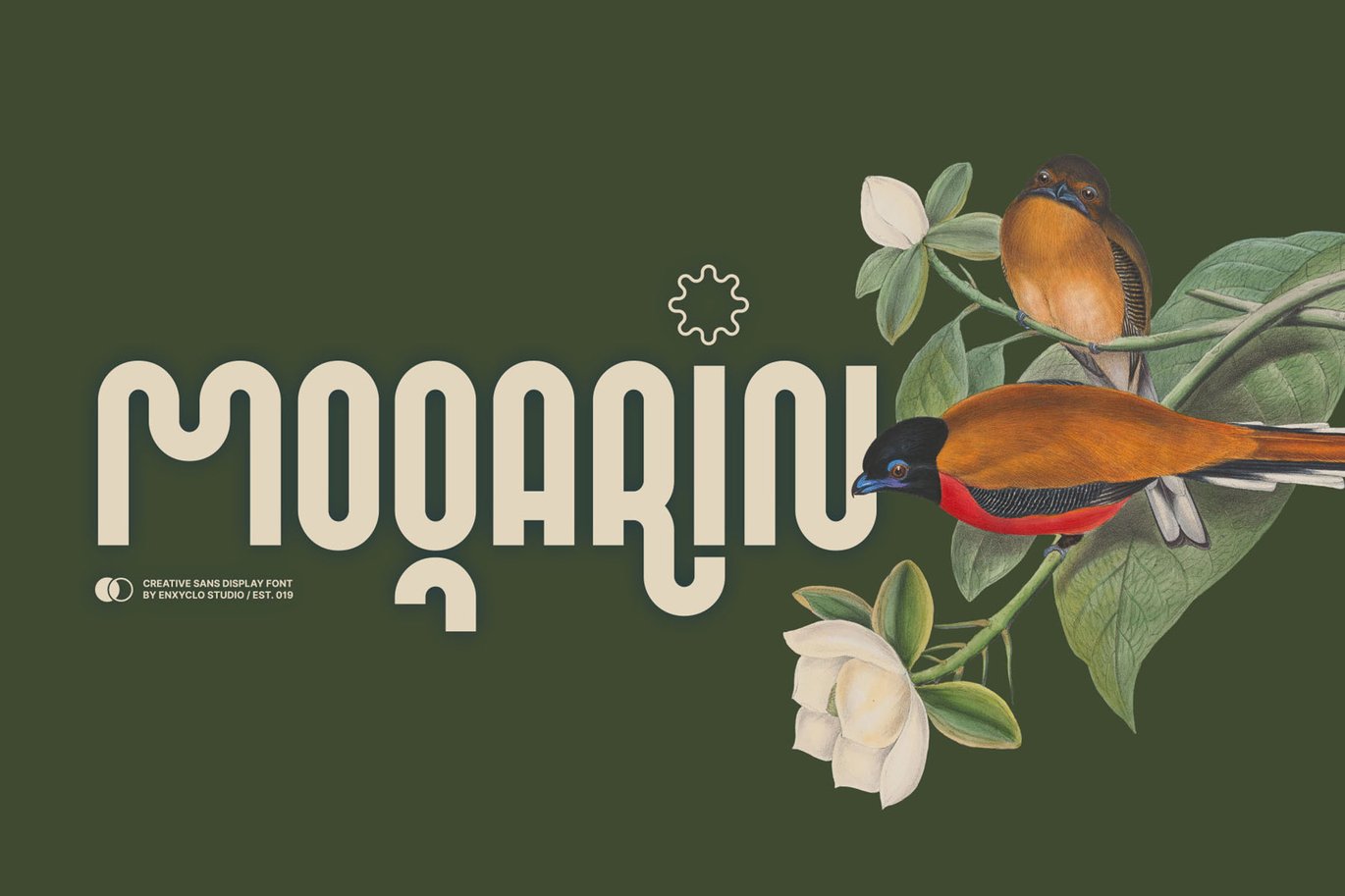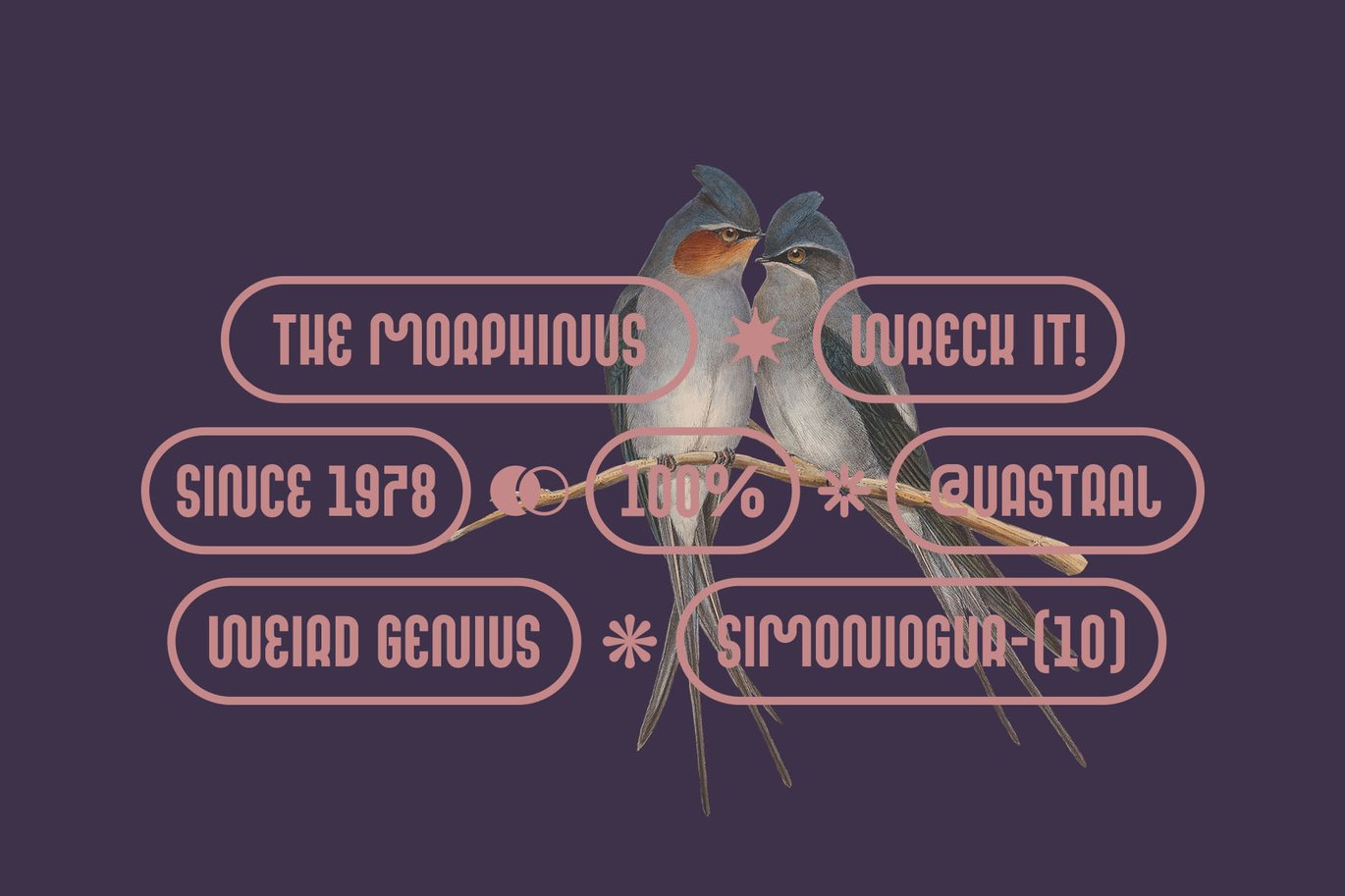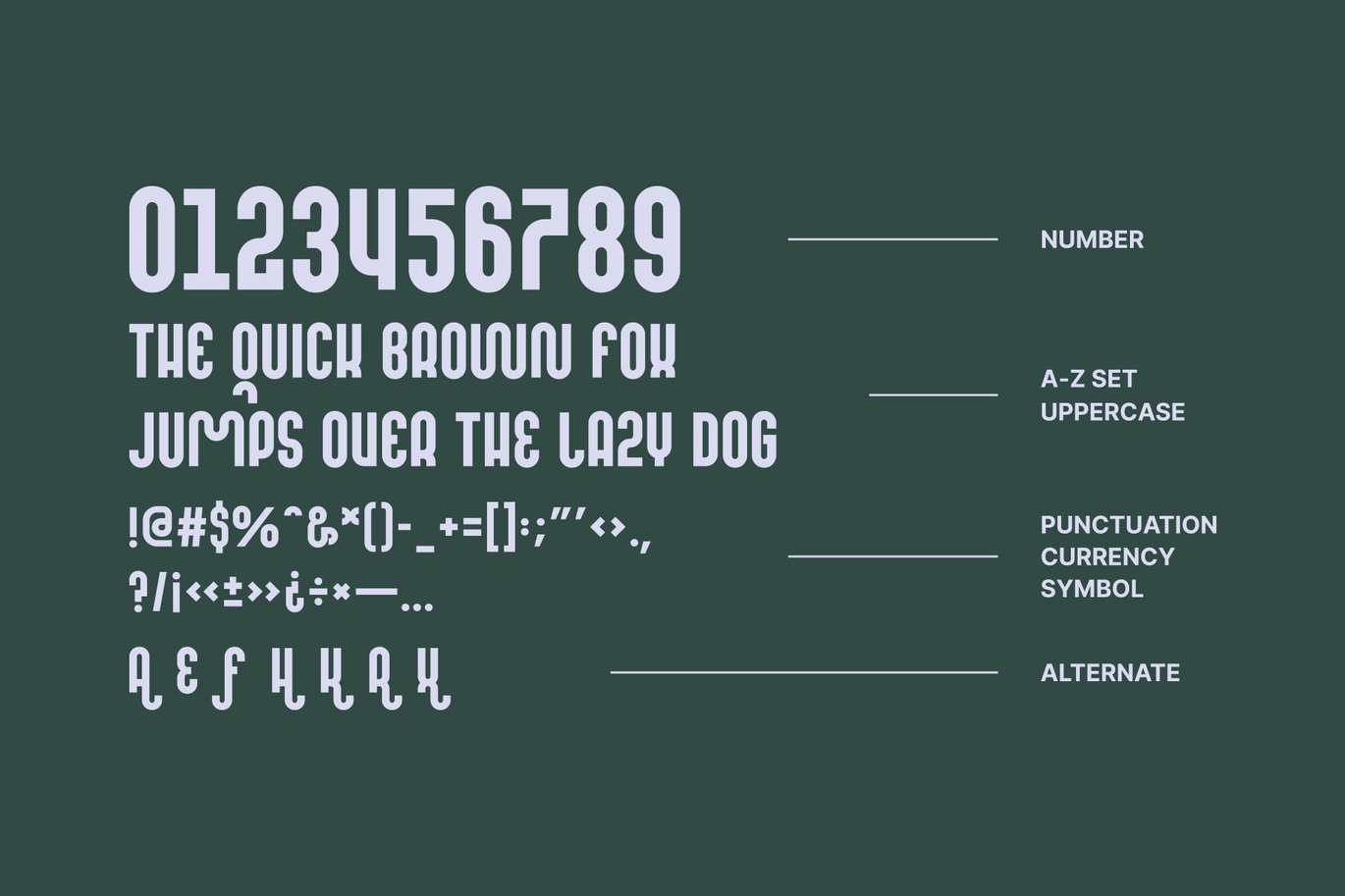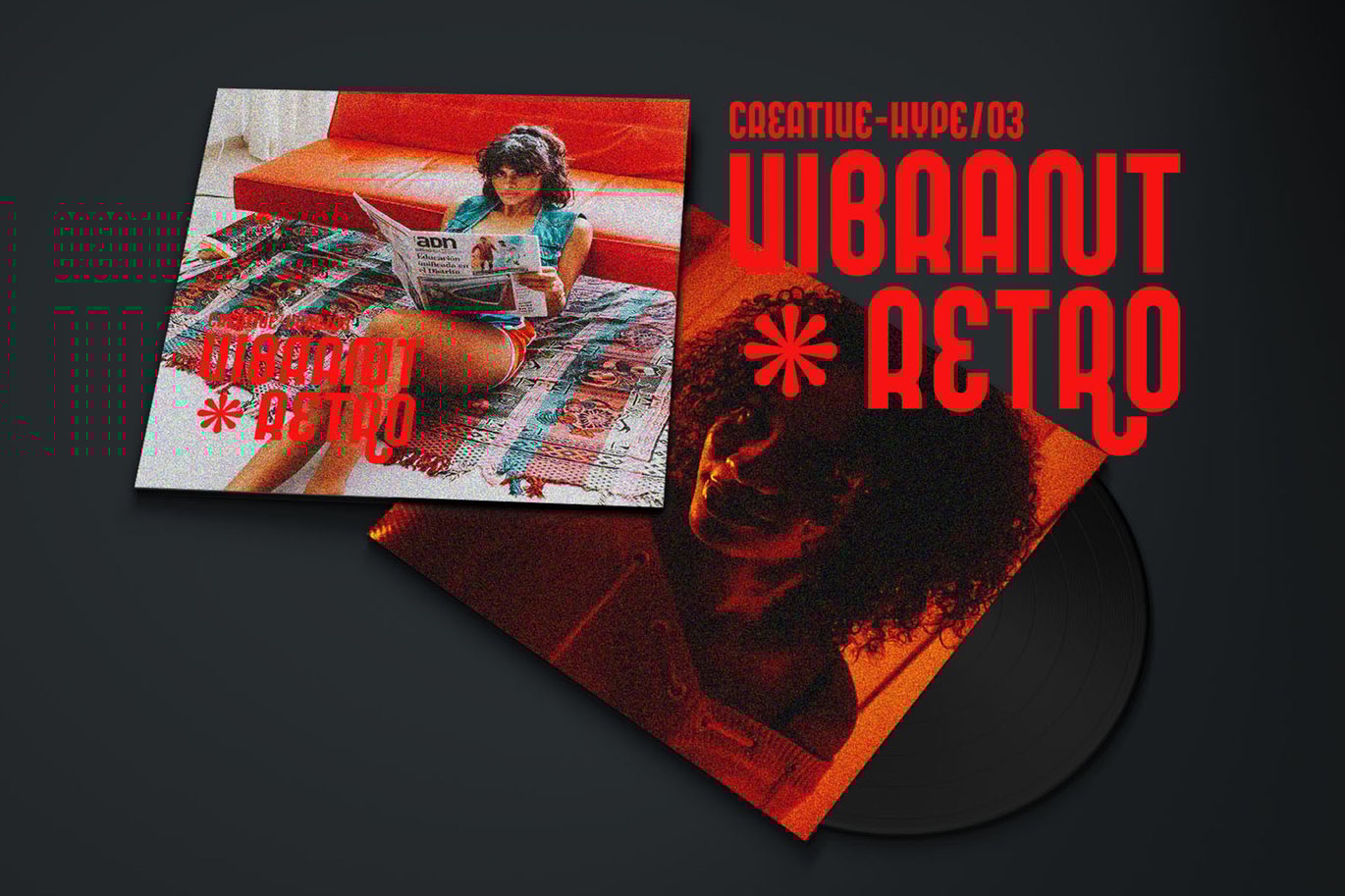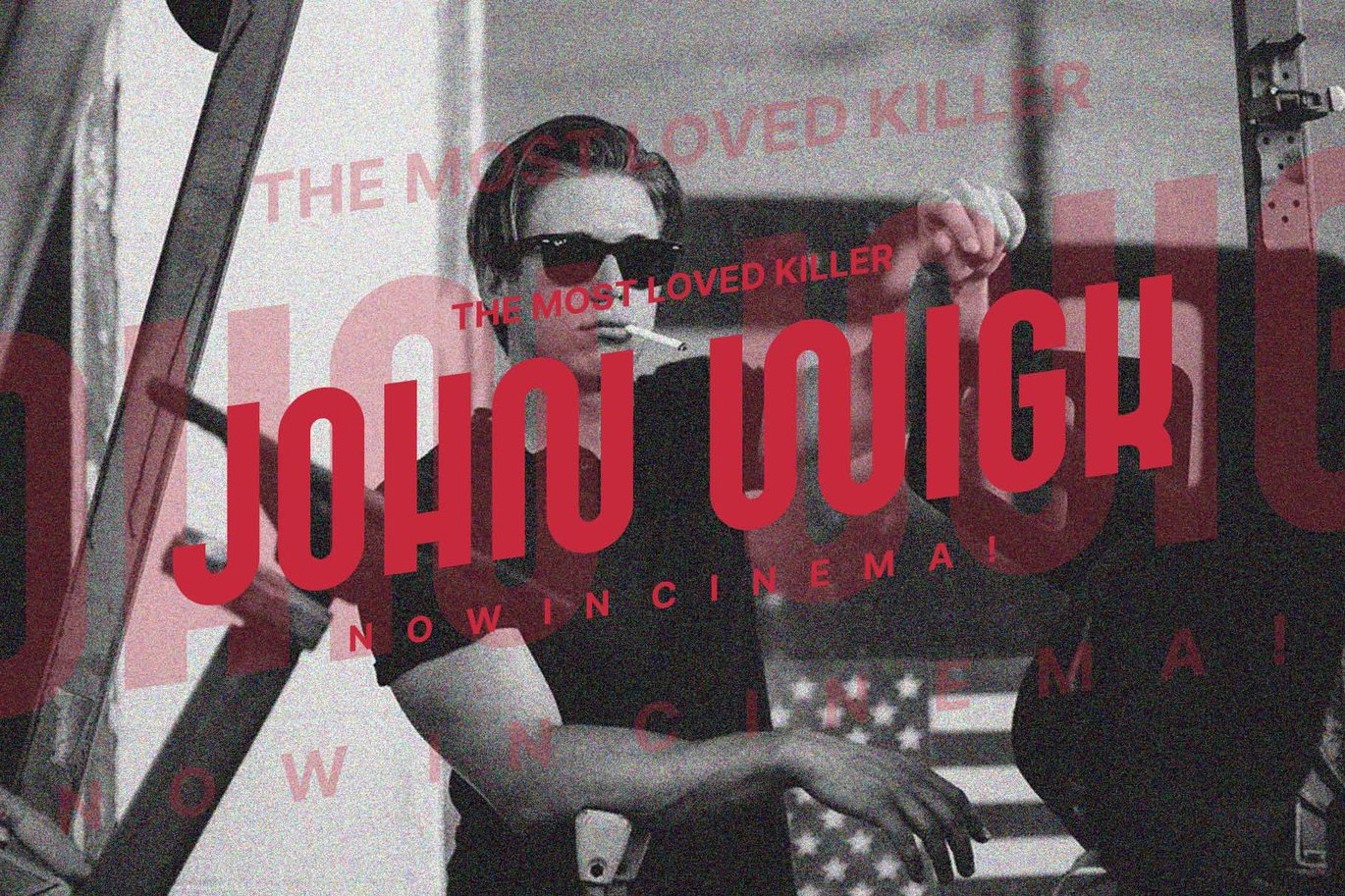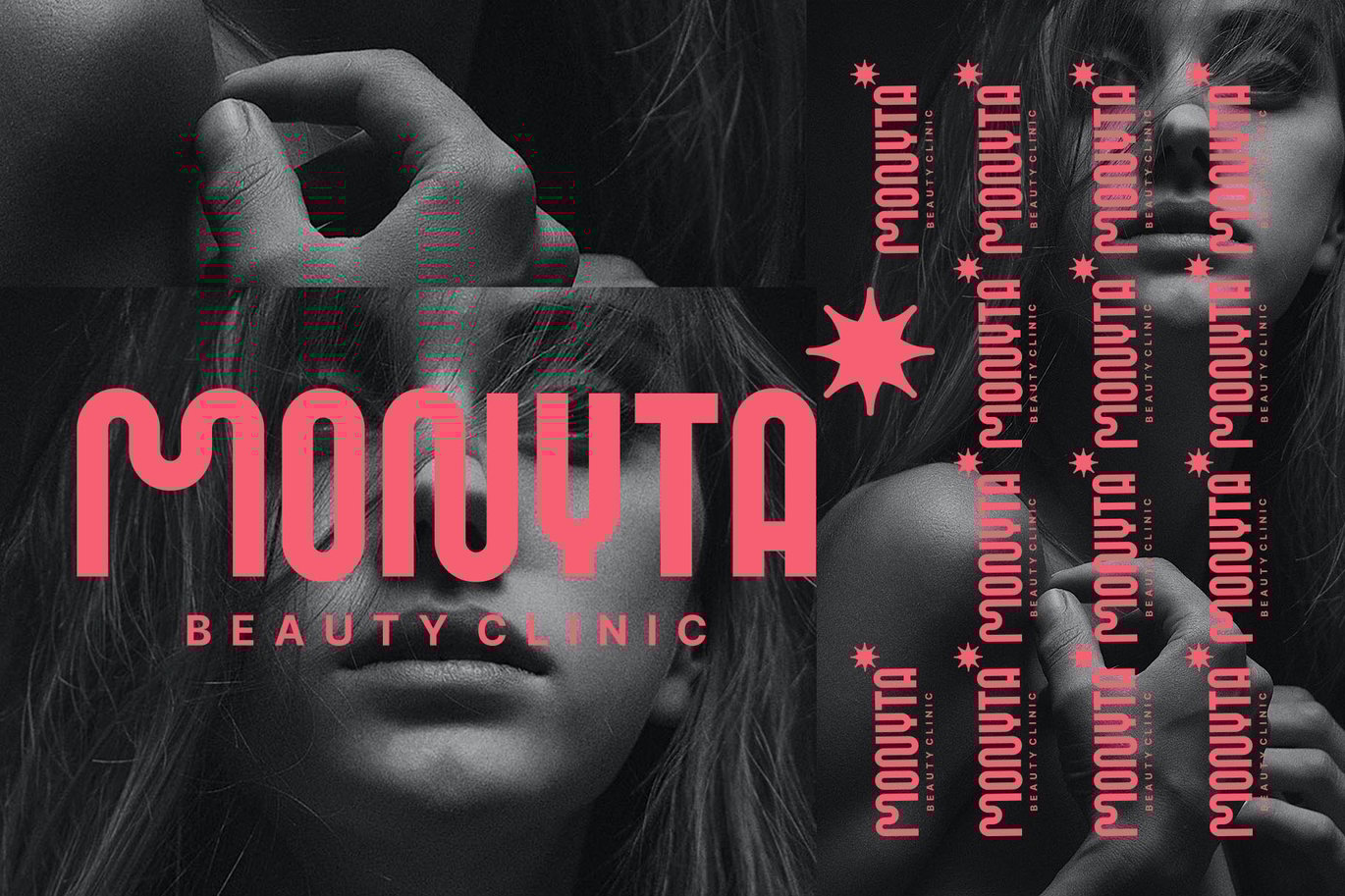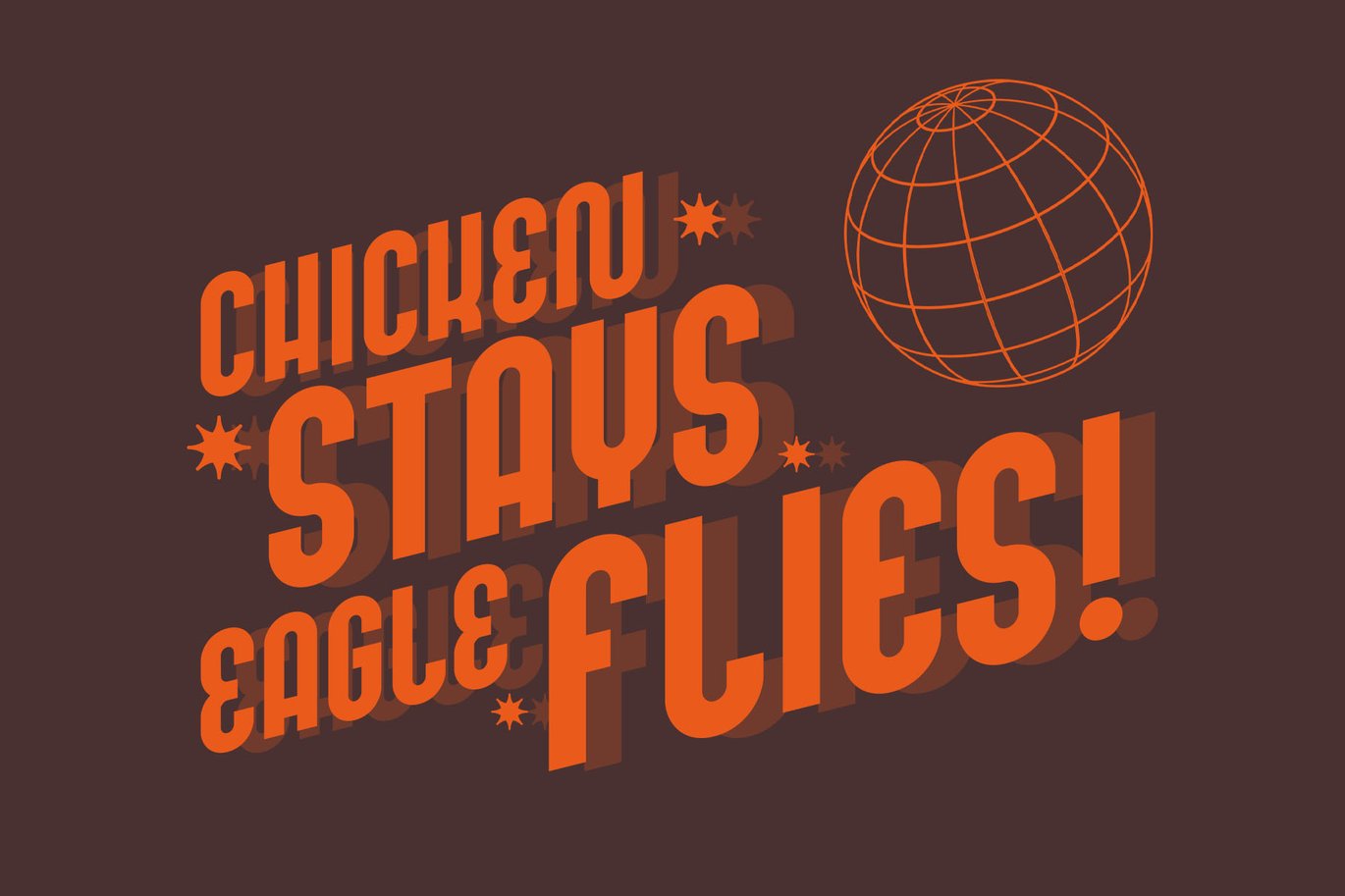
MOQARIN – Rounded & Playful Font
MOQARIN is a simple, condensed rounded & playful sans serif font with bold and complex personality. It was purposely crafted to be used in large point sizes, although it doesn’t lose its magic in small point sizes.
- Contains 118 Glyphs
- Uppercase Only
- 7 Alternates
- Numeral, Punctuation & Symbol